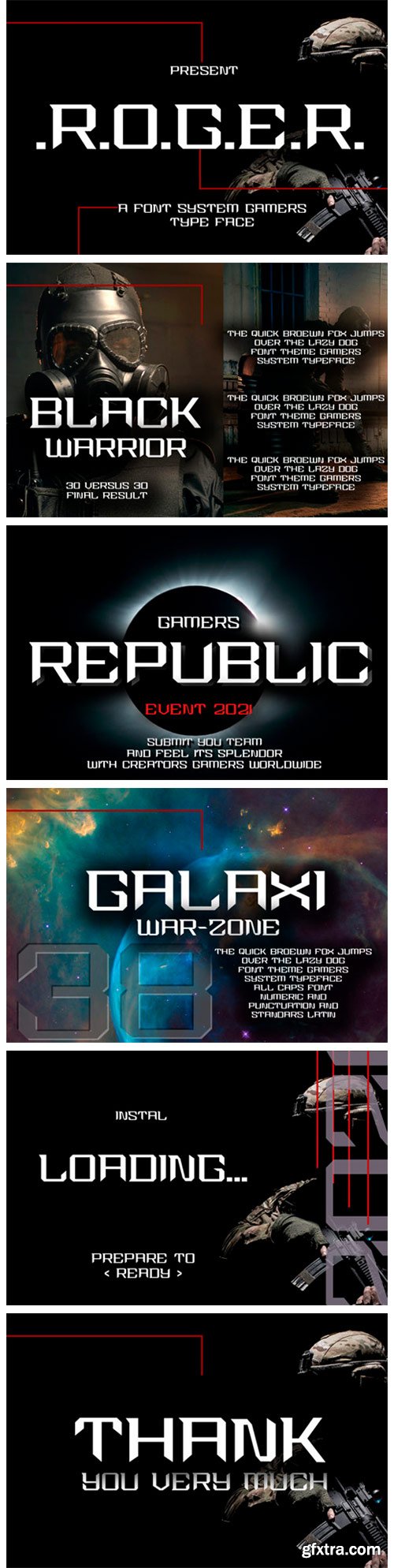
Roger Font
Roger is a robotic looking display font. It has a techno style and it will be a hit for each of your games, posters and headlines. Add it confidently and you won’t be disappointed.